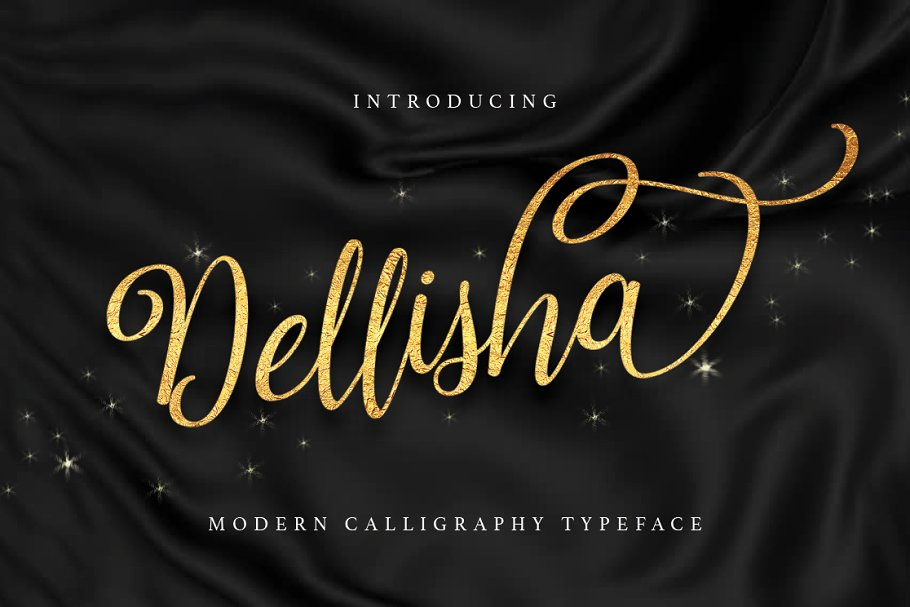
Dellisha Script Font
Dellisha Script Font is perfect for elegant wedding invitations, sophisticated boutique branding, graceful beauty campaigns, refined greeting cards, luxurious fashion labels, upscale restaurant menus, cultured hospitality signage, feminine lifestyle magazines, exclusive event materials, and delicate personal stationery.
Dellisha Script Font is exciting because it masterfully captures the essence of delicate sophistication and feminine grace, creating a script typeface that embodies refined elegance, gentle strength, and the exquisite beauty of carefully crafted feminine expression. This font brings delicate charm and sophisticated authenticity to any project, making it ideal for luxury brands that want to convey femininity, refinement, and the delicate beauty that speaks to discerning taste. Its graceful character and delicate appeal create an atmosphere of sophisticated femininity that resonates with audiences who appreciate elegant subtlety and refined beauty.
Dellisha Script Font family includes regular, light, and medium weights, plus delicate swashes, graceful flourishes, and refined ornamental elements, providing designers with comprehensive tools for creating elegant typography and sophisticatedly feminine brand experiences.
This exquisite delicate script typeface combines refined feminine aesthetics with contemporary design functionality, making Dellisha Script Font Free Download a premium choice for projects celebrating sophisticated beauty and graceful femininity. The font's delicately crafted letterforms feature graceful proportions and feminine styling that reflect the artistry of fine penmanship and the sophisticated beauty of refined feminine elegance.
Whether you're designing luxury beauty branding, sophisticated fashion campaigns, or elegant hospitality materials, Dellisha Script Font delivers unmatched delicate authenticity and feminine appeal. The font excels in both intimate luxury applications and graceful environments where sophistication and feminine beauty create memorable refined experiences.
Luxury brand professionals choose Dellisha Script Font for its ability to instantly communicate delicate sophistication and feminine grace while creating emotional connections with discerning audiences seeking authentic luxury and refined feminine beauty. The font's graceful character makes it particularly effective for beauty brands, luxury fashion houses, and sophisticated feminine lifestyle companies.
Each character reflects the flowing artistry of delicate penmanship, featuring graceful curves and refined proportions that create typography as beautiful and sophisticated as fine lace, delicate jewelry, and the most exquisite expressions of feminine elegance.